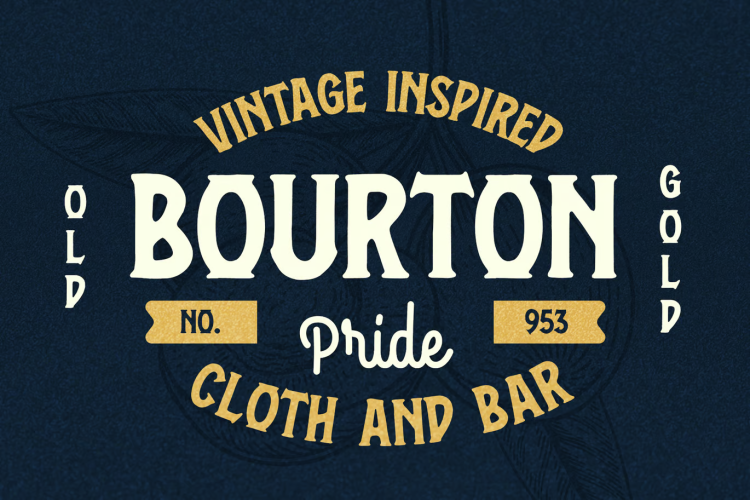
Vintage Browner Font
If you like vintage-style typefaces, Vintage Browner is a beautiful one. With an original hand-drawn design and careful craftsmanship, it has an old-fashioned charm that works well for projects that need a classic touch.
Vintage logos, logotypes, packaging, shops, prints, t-shirts, decals, labels, and a lot of other things look great with this font. You can make your own vintage-style patterns with its unique characters!
Uppercase
Small caps
Numbers & symbols
Stylistic alternates
Multilingual support
Vintage Browner Font is a Typeface font that brings a professional and versatile look to your projects. If you like vintage-style typefaces, Vintage Browner is a beautiful one.